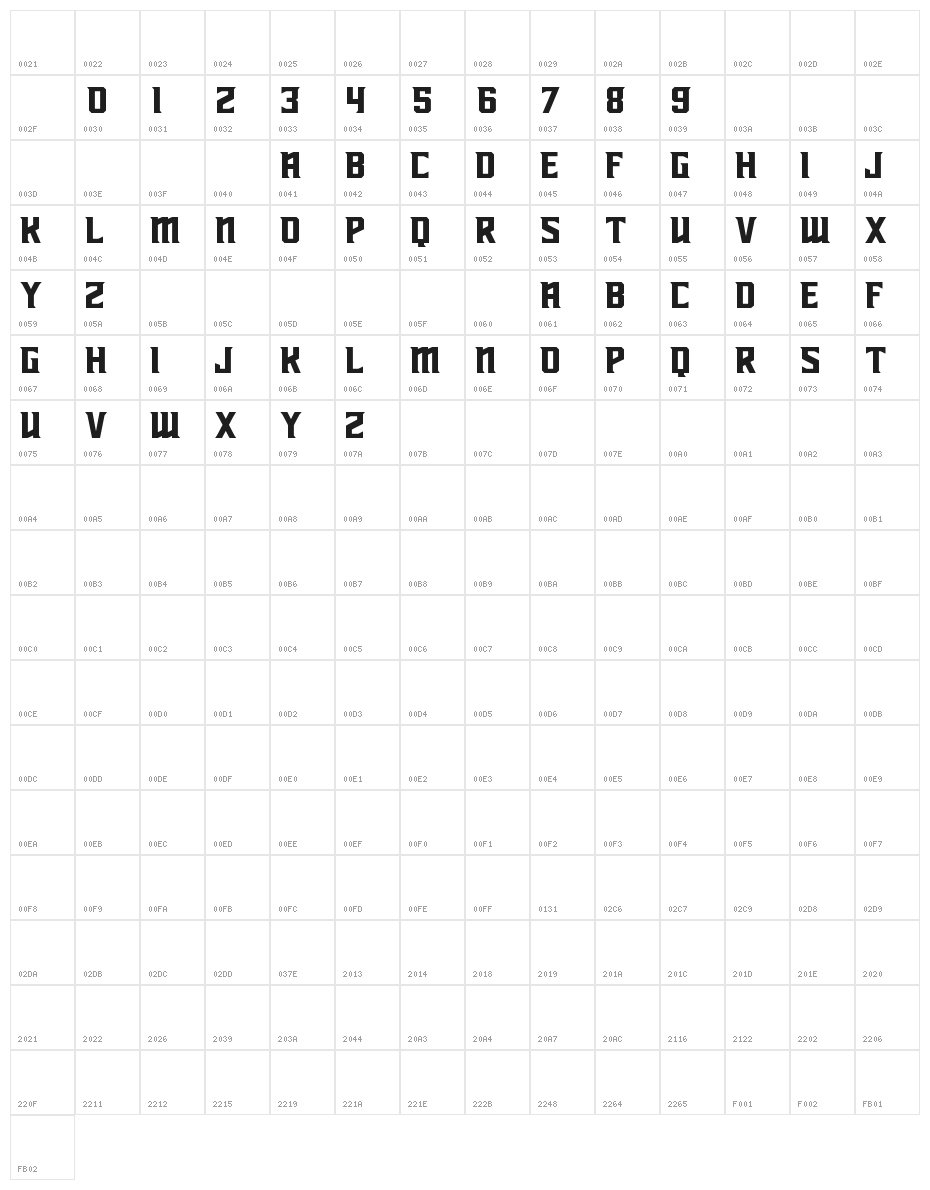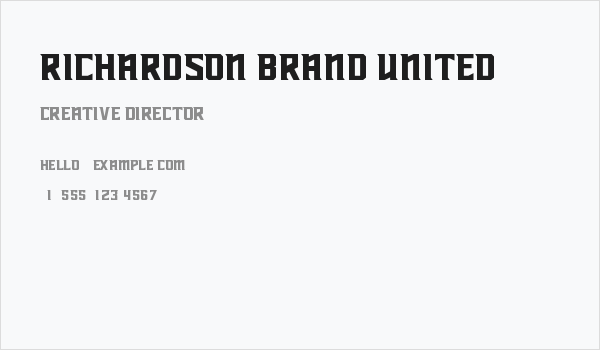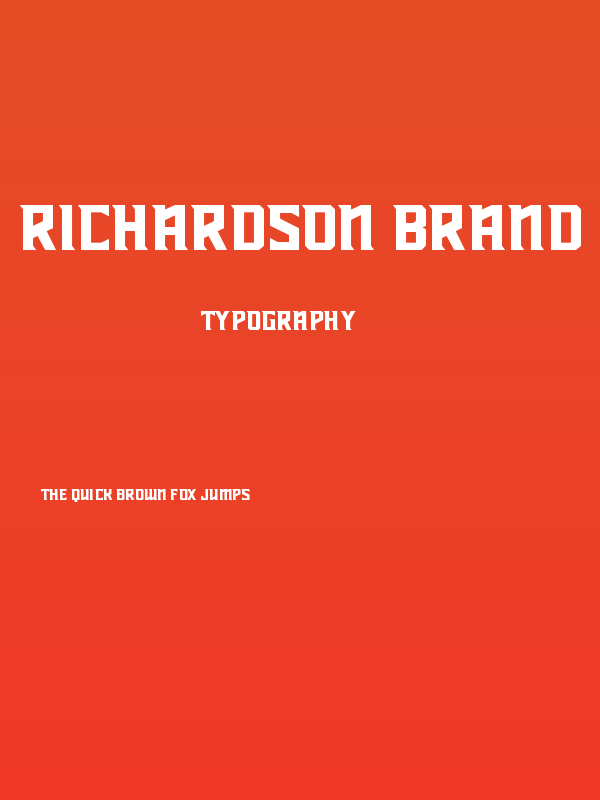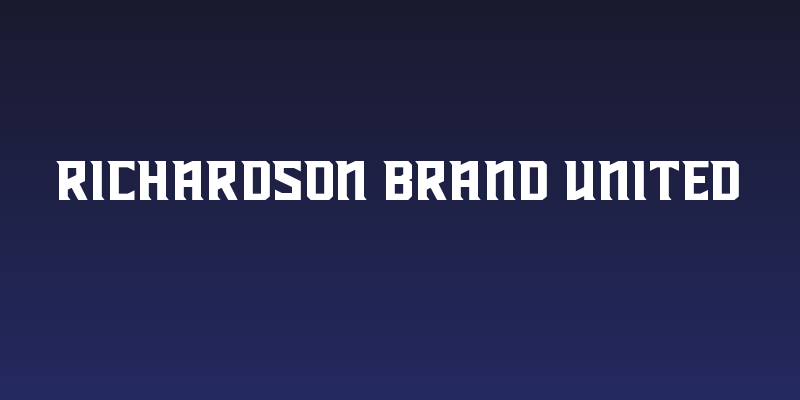
Richardson Brand United Font
Richardson Brand United Description
This font features a bold, geometric design with strong, angular lines and a distinctive, modern aesthetic. The characters are uniformly structured, with sharp edges and a consistent stroke width that gives it a powerful presence. The uppercase letters are particularly striking, with a blocky, robust appearance that commands attention. The numerals follow the same design principles, ensuring a cohesive look across all characters. This font is ideal for projects that require a bold statement, such as branding, headlines, or signage.
| Use Case | Headlines, Logos, Signage |
| Proposed Projects | Ideal for branding, headlines, signage, and any project requiring a bold statement. |